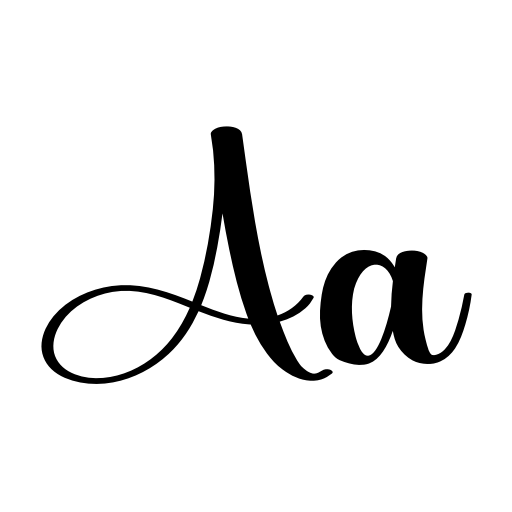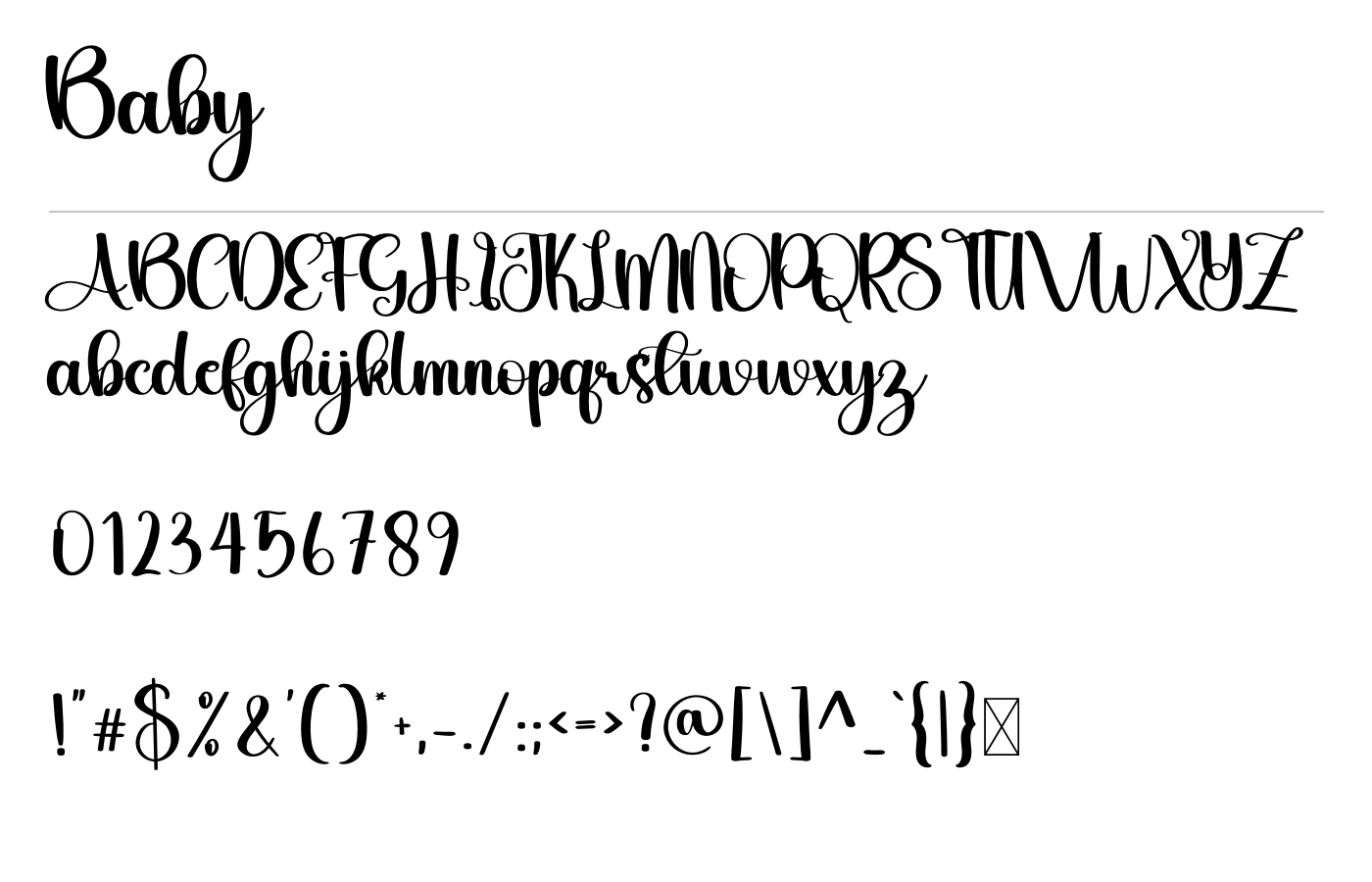
Baby Font is a lively and elegant script font with a playful, handwritten style that features flowing, connected strokes and charming curls. Its medium weight and balanced contrast give it a friendly yet refined personality, making it perfect for branding, invitations, or any design that aims to feel warm and approachable with a touch of sophistication.
Baby Font